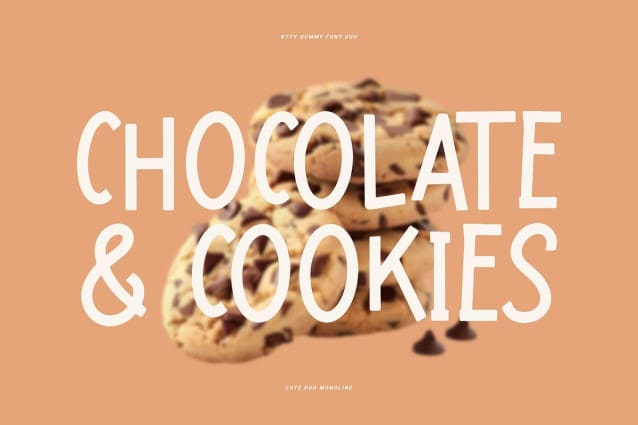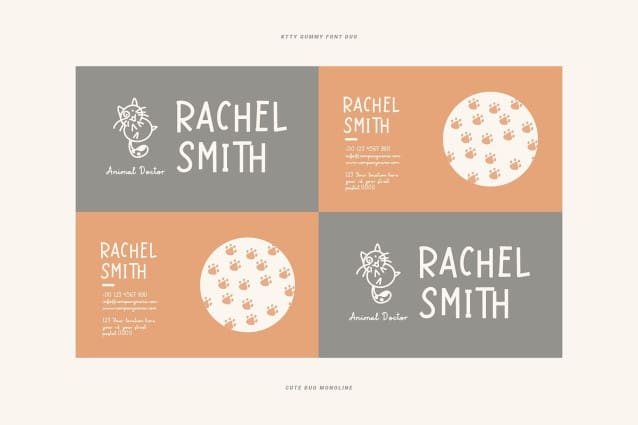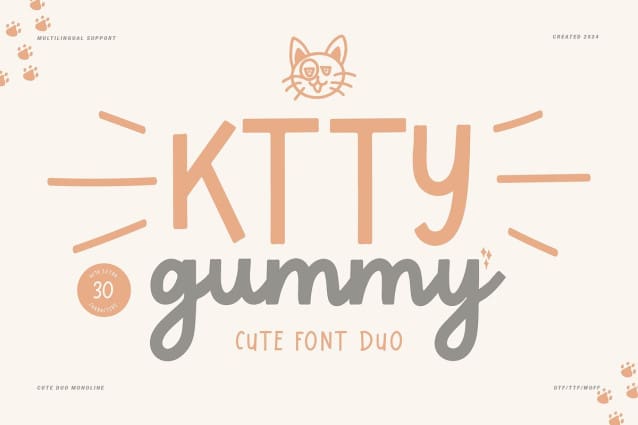
Ktty Gummy Font Duo
Ktty Gummy Font Duo, from Denustudios, suitable for any projects such as: logos, branding projects, homeware designs, product packaging, mugs, quotes, posters, shopping bags, t-shirts, book covers, name card, invitation cards, greeting cards, label, photography, watermark, special events, and all your other lovely projects that need a Cute Font Duo taste.